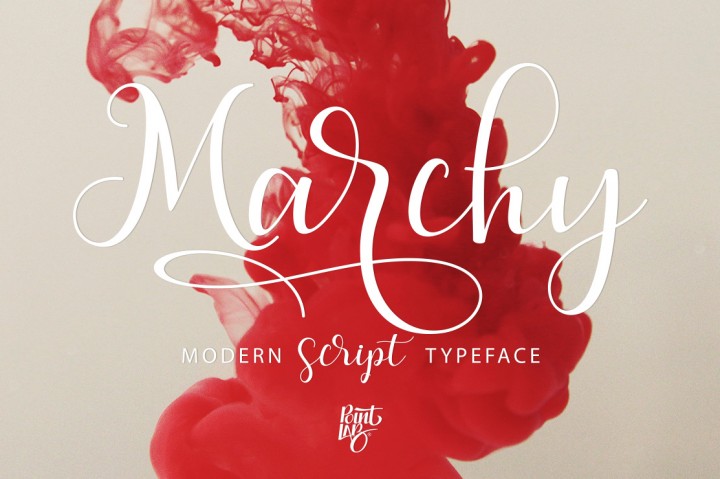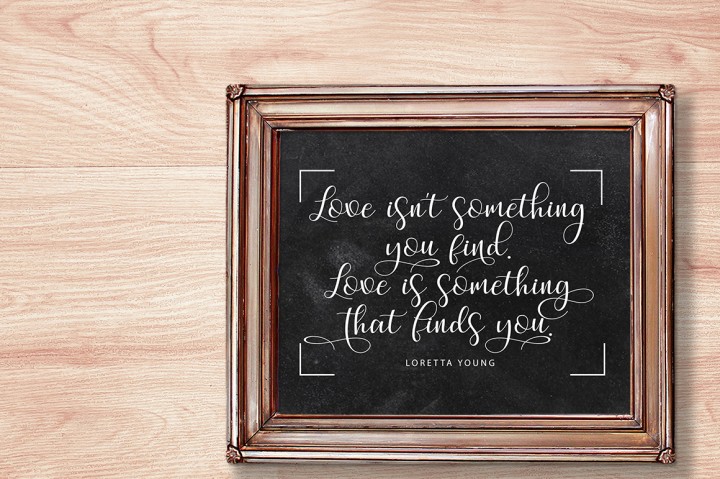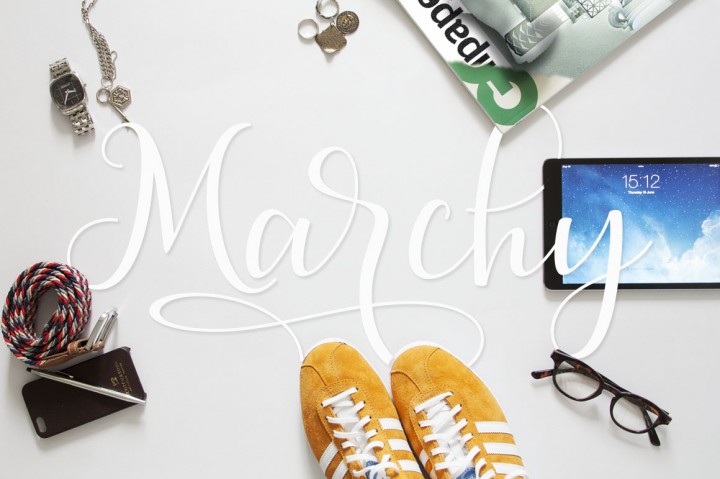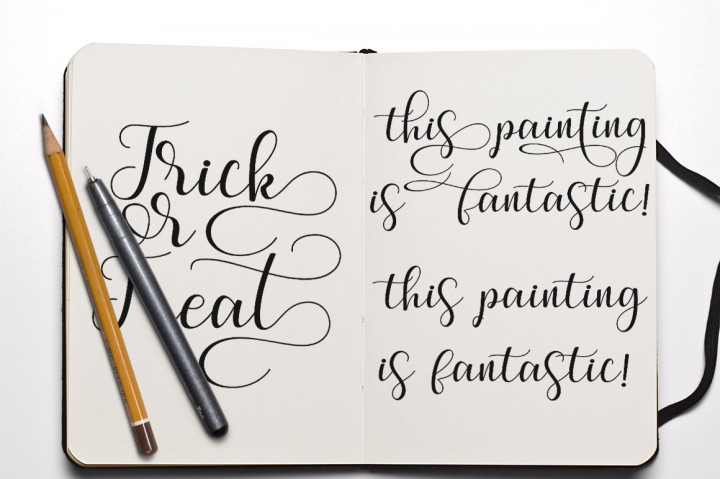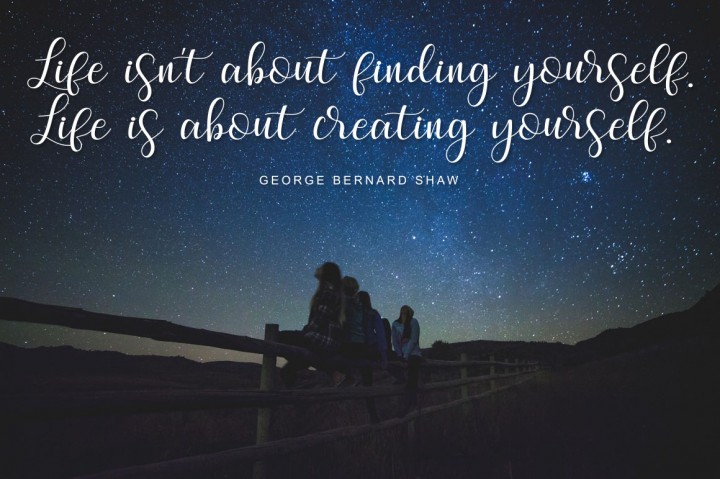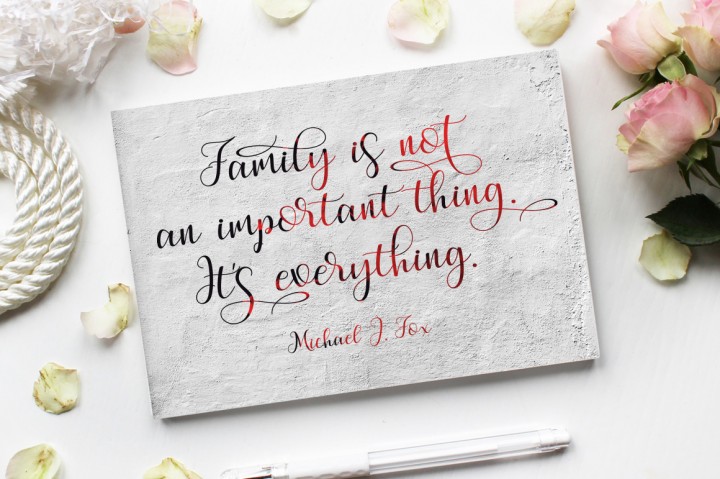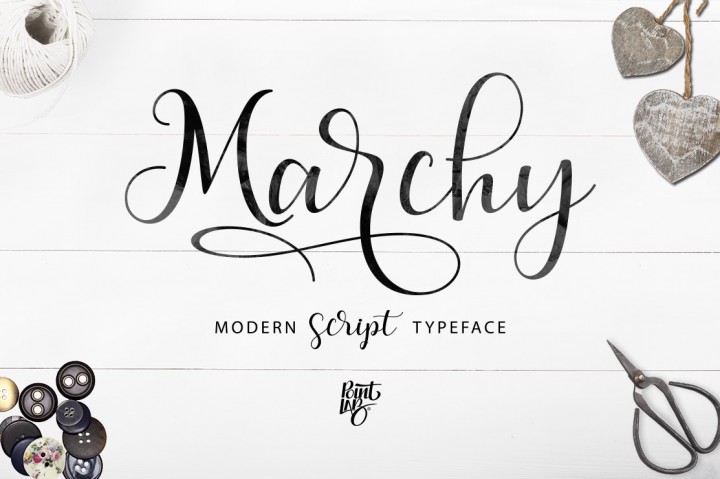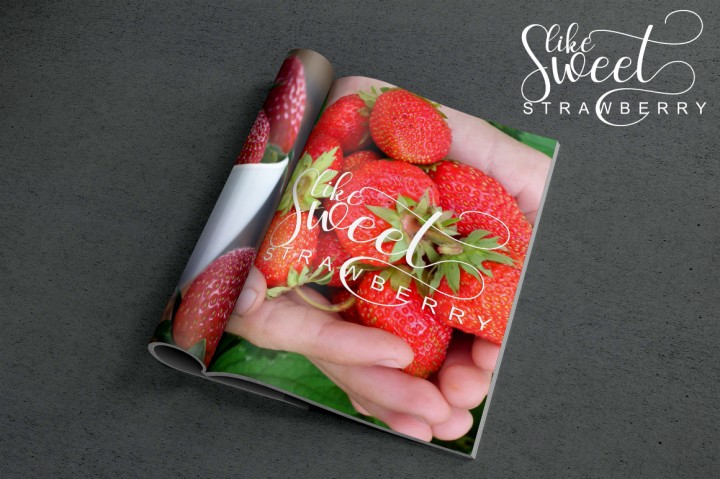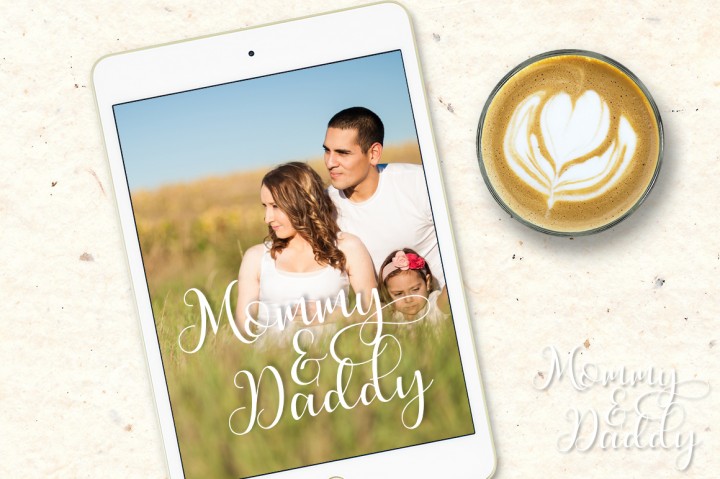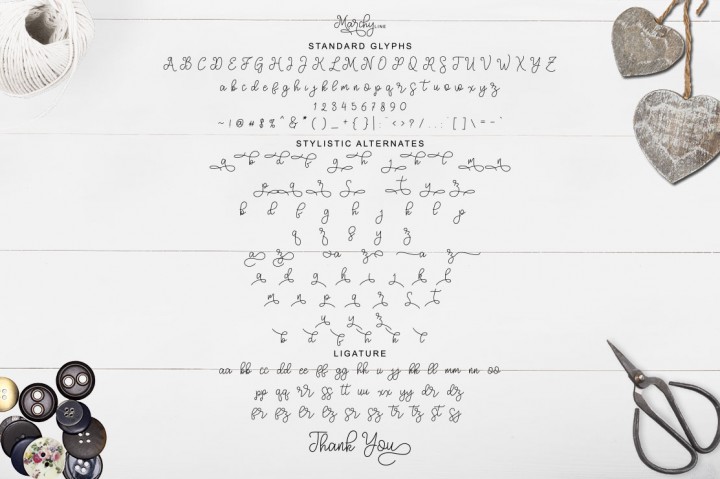
Marchy Font
About Marchy Font
Marchy Script is a stunning handmade calligraphy style font created by PointLab.
The Marchy font comes in 3 versions:
Marchy Script
Marchy Line
Marchy Sans
These decorative fonts work great together. The Marchy Script font features over 430 unique handmade glyphs.